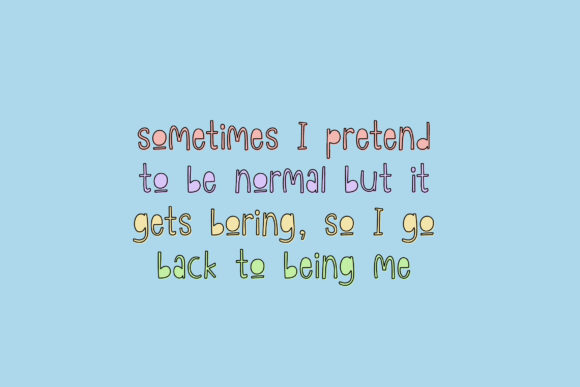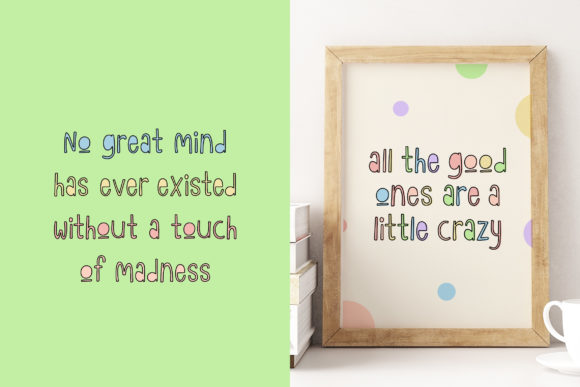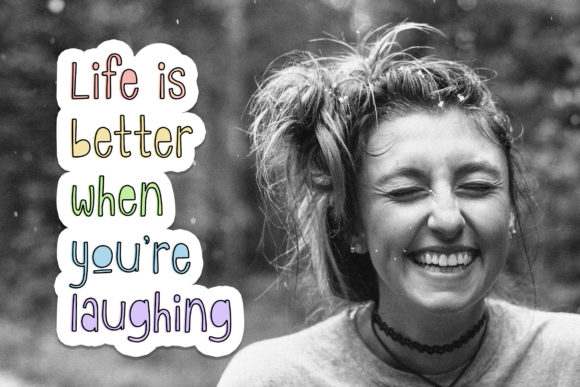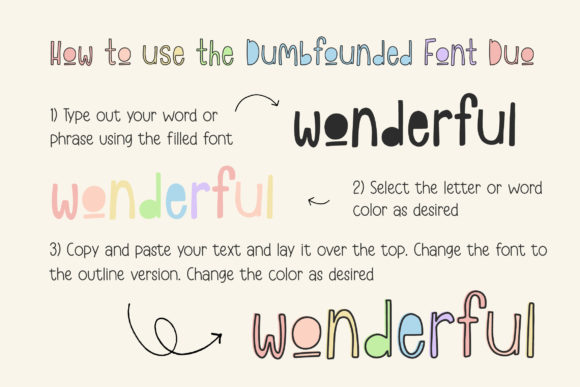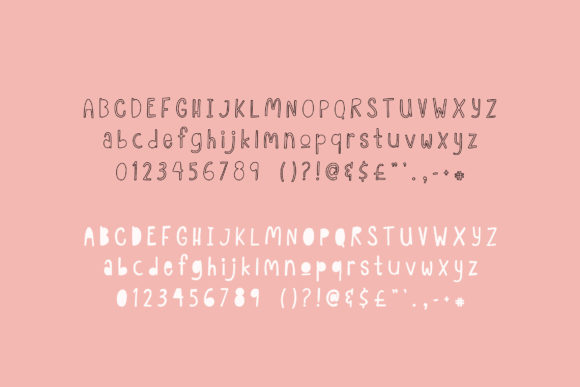
Discovering the Perfect Playful Font: Dumbfounded Duo Font
Have you ever stumbled upon the perfect font that just sparks your creativity and makes you want to create something amazing? For designers, it’s those special moments that remind us why we love our job so much. I still remember the day I discovered the Dumbfounded Duo Font – a cute and playful display font that embodies the perfect blend of playfulness and authenticity.
The Dumbfounded Duo Font is the perfect choice for any children’s activity or school project that requires a touch of whimsy and fun. Its unique design makes it an excellent addition to any designer’s toolkit, allowing them to add a personal touch to their work. Whether you’re designing a children’s book, a birthday invitation, or a school project, the Dumbfounded Duo Font is sure to bring a smile to your face and a touch of magic to your design.
Dumbfounded Duo Font Key Features
- Font Family: A pair of matching fonts, ‘Dumbfounded Duo Regular’ and ‘Dumbfounded Duo Bold’, designed to be used together.
- Font Size: Each font contains 256 glyphs, covering a wide range of characters, including Latin, Cyrillic, and Greek alphabets.
- Resolution: Optimized for screen and print use, with clear readability at resolutions up to 300 DPI.
- Unique Characteristics: The ‘Dumbfounded Duo’ fonts feature a quirky, hand-drawn design with subtle imperfections, adding a touch of personality to any project.
Dumbfounded Duo Font Review
The Dumbfounded Duo Font caught my attention with its unique blend of elegance and playfulness. I think the font designers have done an excellent job of creating a distinctive yet versatile typeface.
Here are some aspects that work well: ✨
- The font’s contrast is spot on, making it perfect for both body text and headings.
- The duo’s design allows for a wide range of tone and atmosphere, from whimsical to sophisticated.
- The bold weight is incredibly strong and works well for titles and emphasis.
- The light weight can appear a bit too light and may not be suitable for all types of content.
- The font’s quirks and irregularities may not be to everyone’s taste.
Overall, I think the Dumbfounded Duo Font is a solid choice for designers looking for a distinctive typeface. While it may not be perfect, its strengths far outweigh its weaknesses. I would recommend it for projects where a unique and eye-catching design is a must.
Tips for Getting the Most Out of Dumbfounded Duo
Use Dumbfounded Duo to create bold and playful headlines.
Combine Dumbfounded Duo with other fonts to create unique typography combinations.
Dumbfounded Duo is perfect for:
Creating eye-catching social media graphics.
Designing playful and fun advertisements.
Adding personality to branding and marketing materials.
Alternatives to Dumbfounded Duo Font for Designers
Great Vibes is a modern, cursive script font perfect for creating a friendly and approachable atmosphere. It’s ideal for use in logos, branding, and packaging design where a relaxed, handwritten feel is desired. Great Vibes is a more casual alternative to Dumbfounded Duo Font, with a softer and more fluid appearance.
Carolyna Pro is a sophisticated, elegant script font suitable for high-end branding, luxury packaging, and editorial design. It’s a more refined and polished alternative to Dumbfounded Duo Font, with a focus on precision and attention to detail. Carolyna Pro is ideal for designers seeking a high-end, premium look.
Alex Brush is a beautiful, handwritten font with a unique, organic feel. It’s perfect for use in invitations, wedding stationery, and other creative projects where a personal touch is desired. Alex Brush is a more rustic and expressive alternative to Dumbfounded Duo Font, with a focus on character and personality.